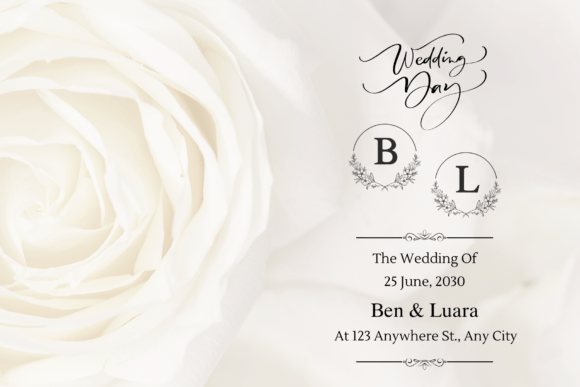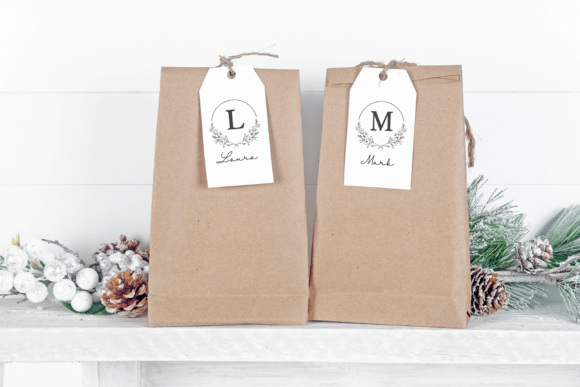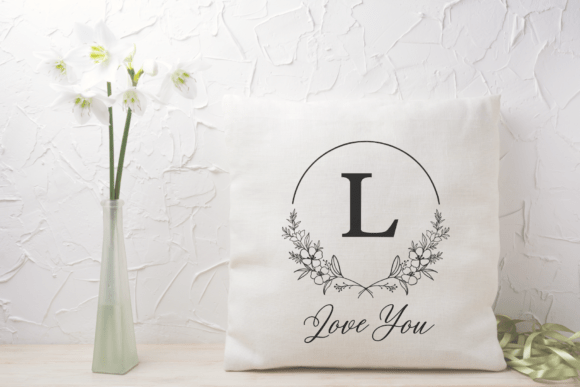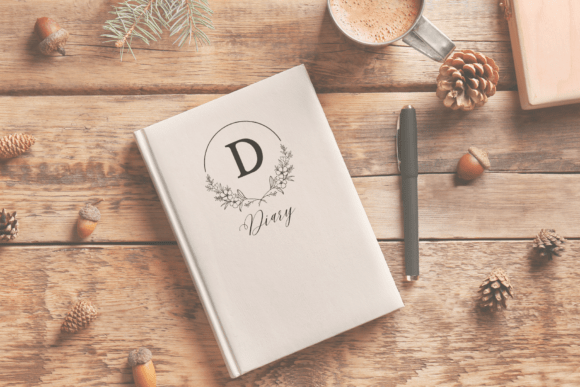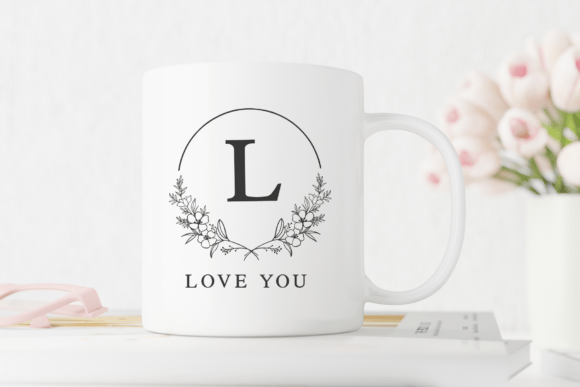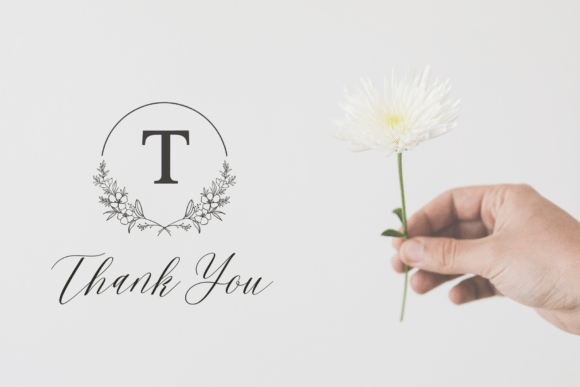
The Perfect Font for Special Occasions: Bright Blooms Monogram
I’ll never forget the time I was working on a wedding invitation project, and my client asked me to create a custom monogram font that exuded elegance and sophistication. I scoured the internet, tried countless fonts, but nothing seemed quite right. That was until I stumbled upon Bright Blooms Monogram, a beautiful font that features decorative letters inside a stunning flower and leaf frame. It was love at first sight! 💕
A Personal Review of Bright Blooms Monogram
• ✨ Elegant and sophisticated design that’s perfect for special occasions
• ✅ Beautiful flower and leaf frame that adds a touch of charm to any celebration
• 🌼 Highly versatile font that can be used for invitations, wedding cards, and more
While Bright Blooms Monogram is an amazing font, there are a few things to keep in mind: 🤔
• ⚠️ Some users may find the font a bit tricky to work with, especially when it comes to accessing OpenType features and glyphs
• ⚠️ The font may not be suitable for body text or long paragraphs, as it’s best used for headlines and titles
The Designer Inspiration Behind Bright Blooms Monogram
Bright Blooms Monogram was inspired by the beauty of nature and the elegance of traditional typography. The designer, a lover of flowers and gardening, wanted to create a font that captured the essence of special occasions and celebrations. With Bright Blooms Monogram, you’ll feel like you’re adding a touch of charm and sophistication to any project! 🌼
Q: Is Bright Blooms Monogram suitable for body text?
A: While Bright Blooms Monogram is a beautiful font, it’s best used for headlines and titles. It’s not recommended for body text or long paragraphs.